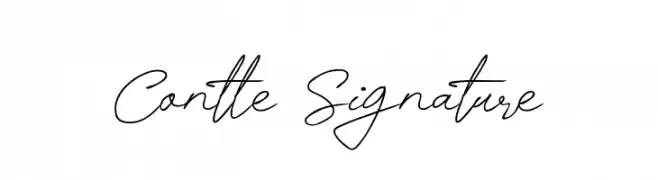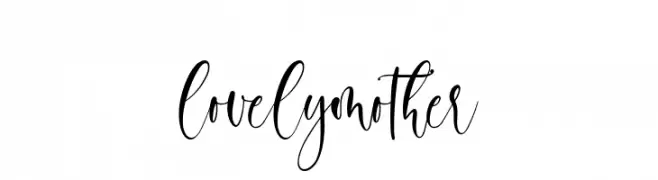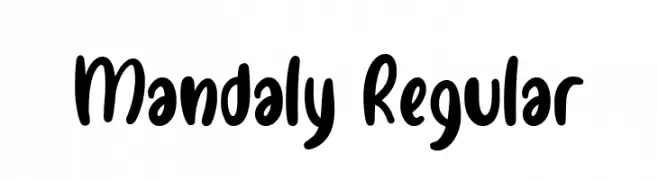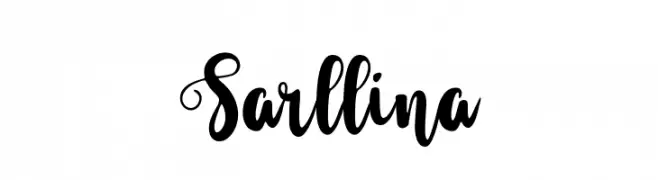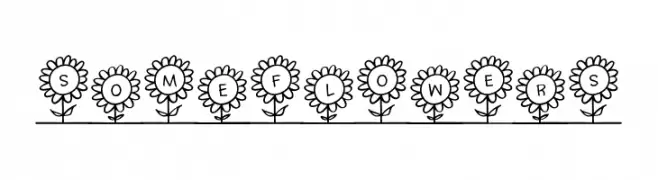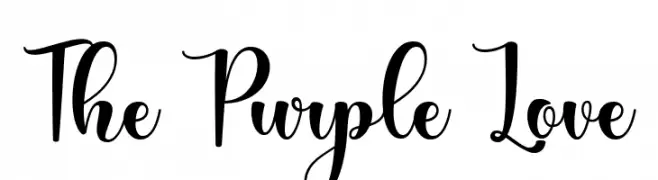
A graceful, handwritten script font with elegant curves and swashes.
An elegant and flowing script font with sophisticated cursive letterforms.
A playful, bold handwritten font with rounded edges and a friendly vibe.
A playful and elegant script font with bold strokes and decorative flourishes.
A playful and elegant script font with decorative swirls and loops.
A whimsical decorative font with characters encased in floral designs.
A bold, modern typeface with clean lines and strong presence.
A modern, geometric sans-serif font with clean lines and uniform strokes.
A bold, cursive font with a dynamic and elegant style.
A sophisticated handwritten script with fluid, continuous strokes and elegant curves.